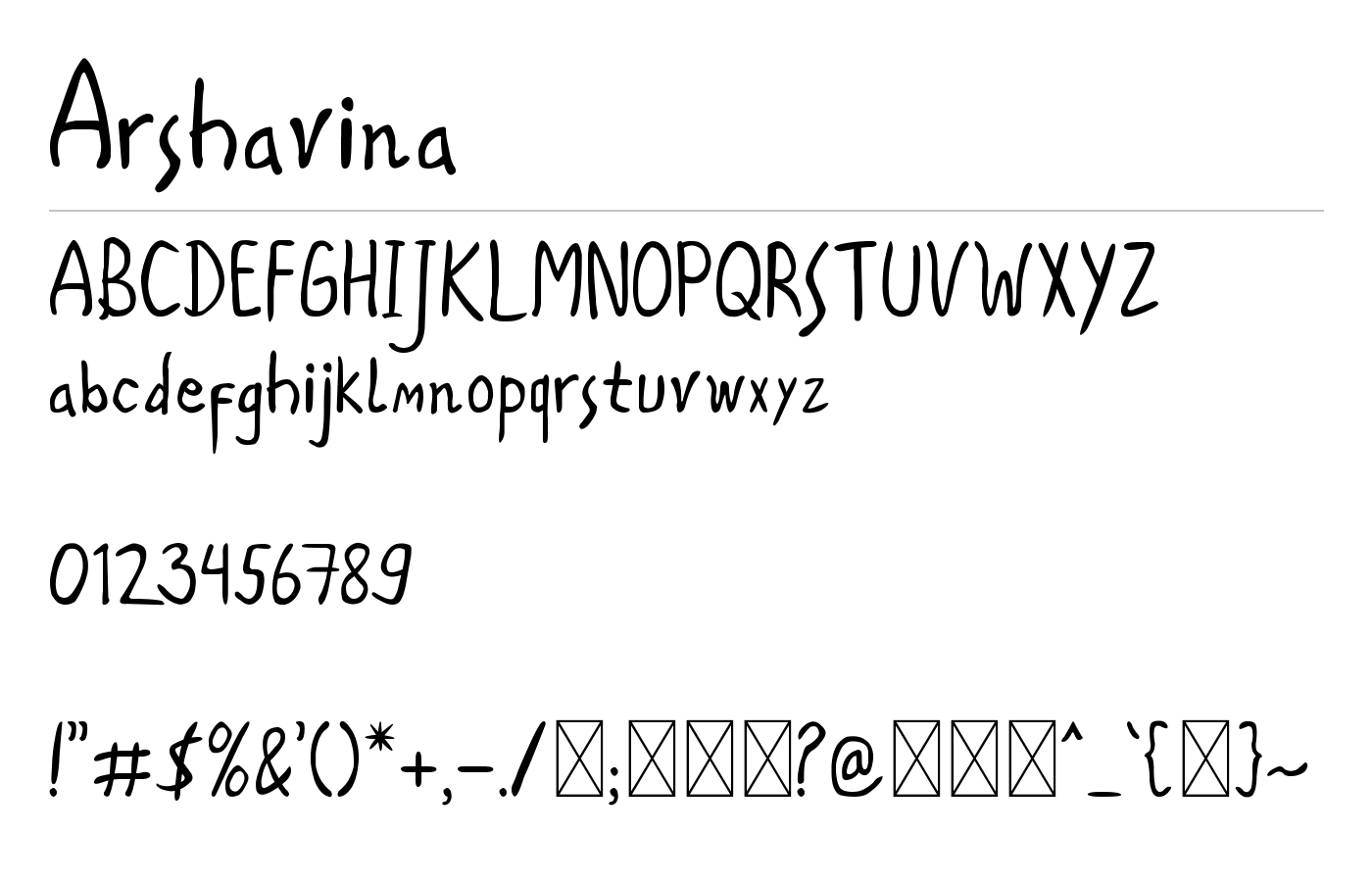
Arshavina is a playful, hand-drawn sans serif font with a casual and friendly vibe. Its irregular stroke widths and slightly quirky letterforms give it a warm, approachable feel, making it ideal for creative projects, informal branding, and children’s media. This font works well in headlines, invitations, and any design where a touch of personality and charm is desired.
Arshavina Font
About Arshavina Font